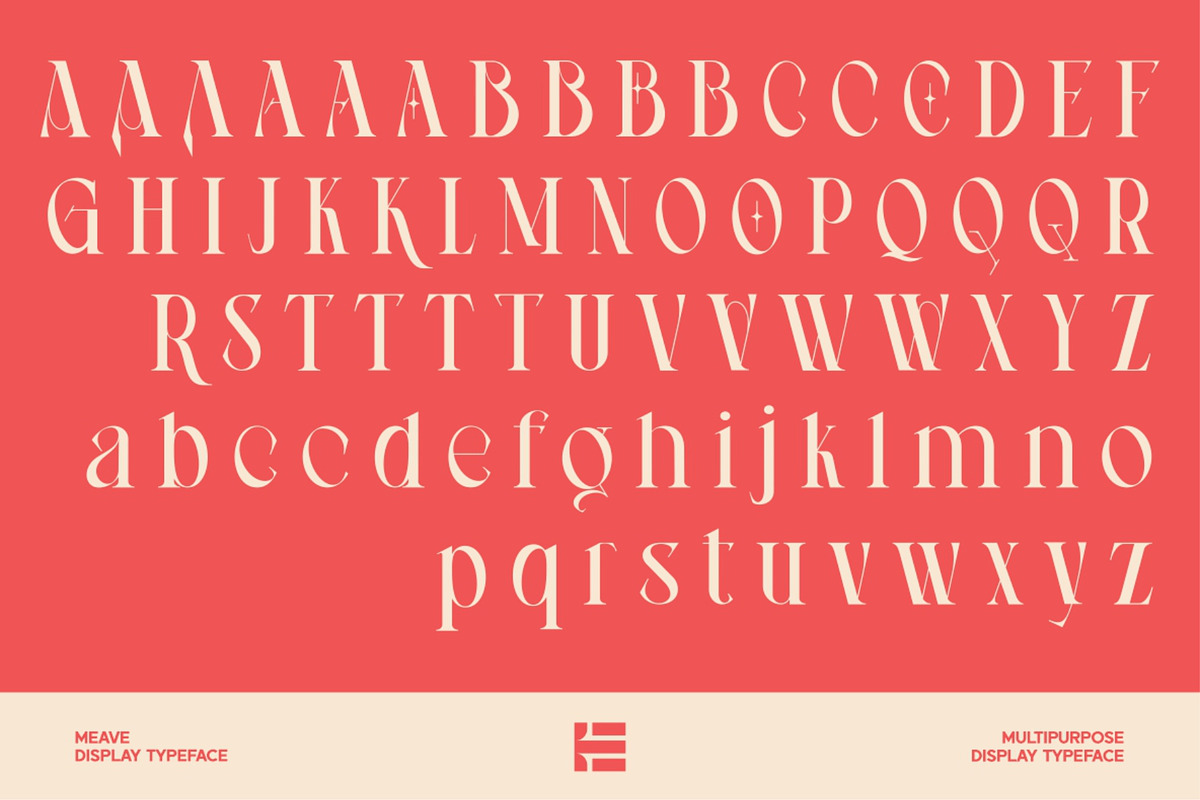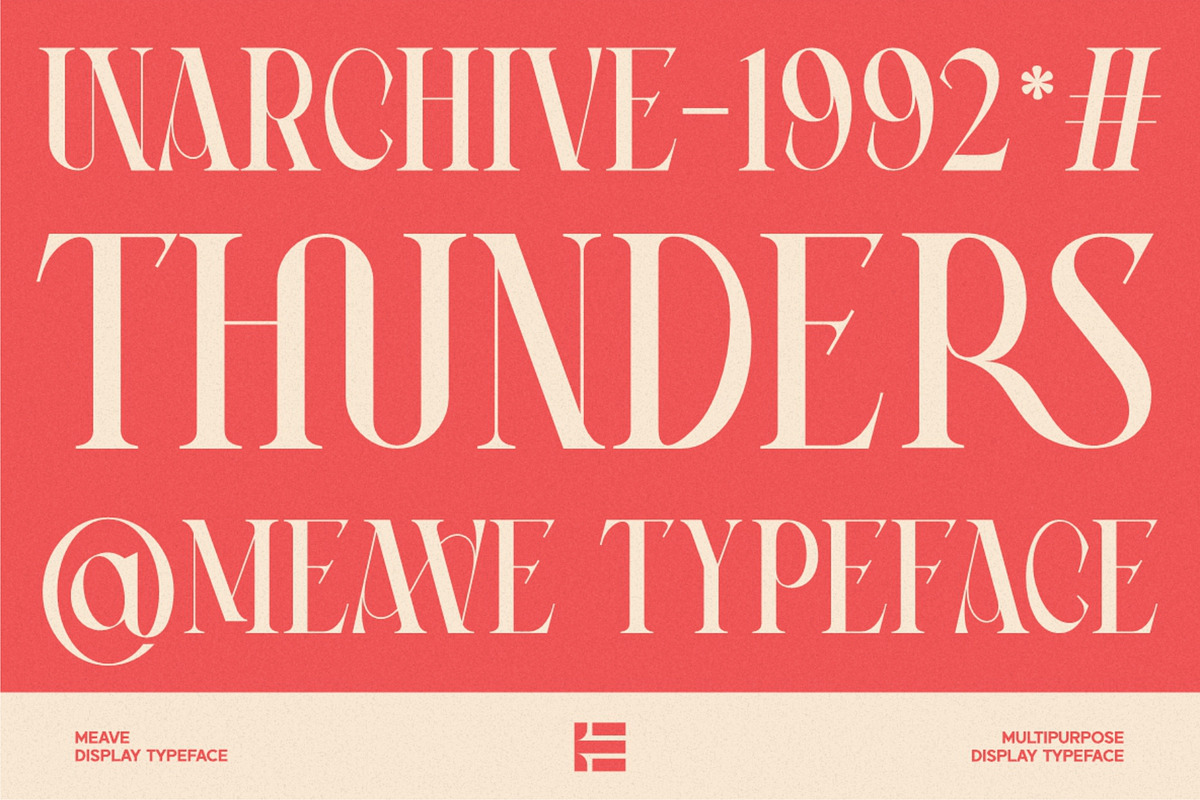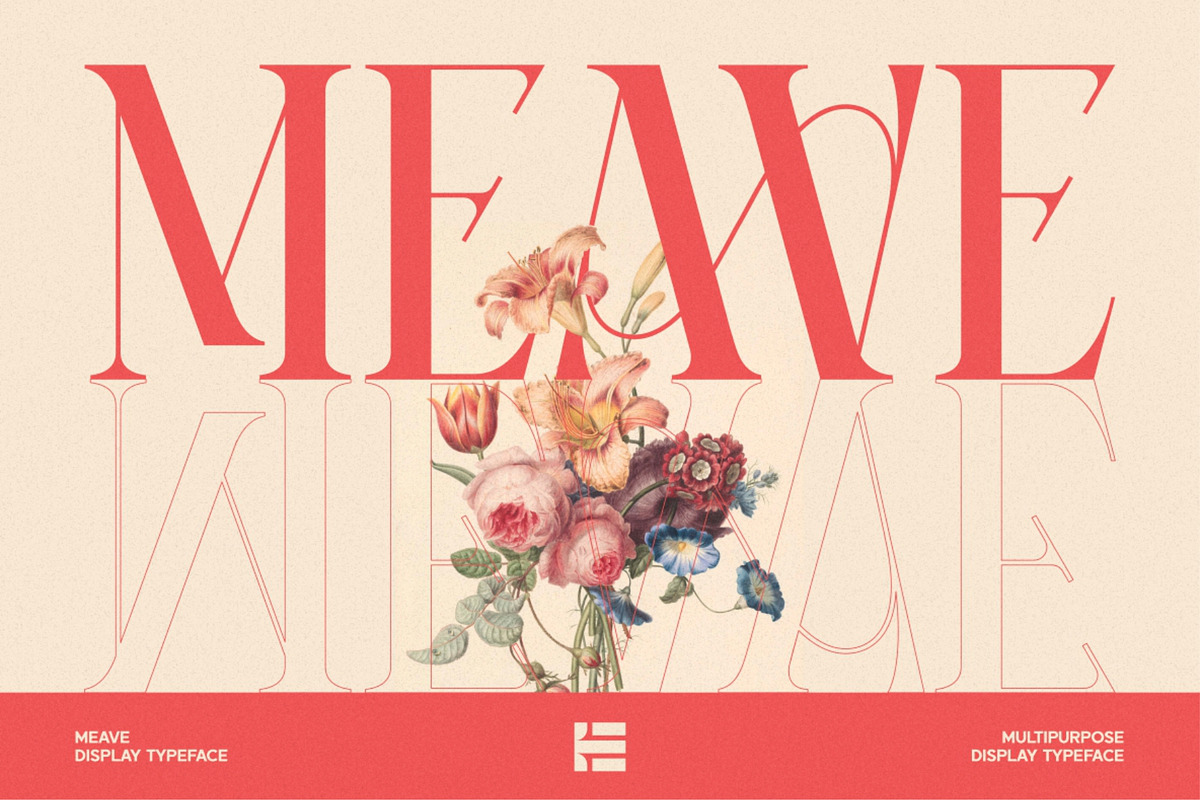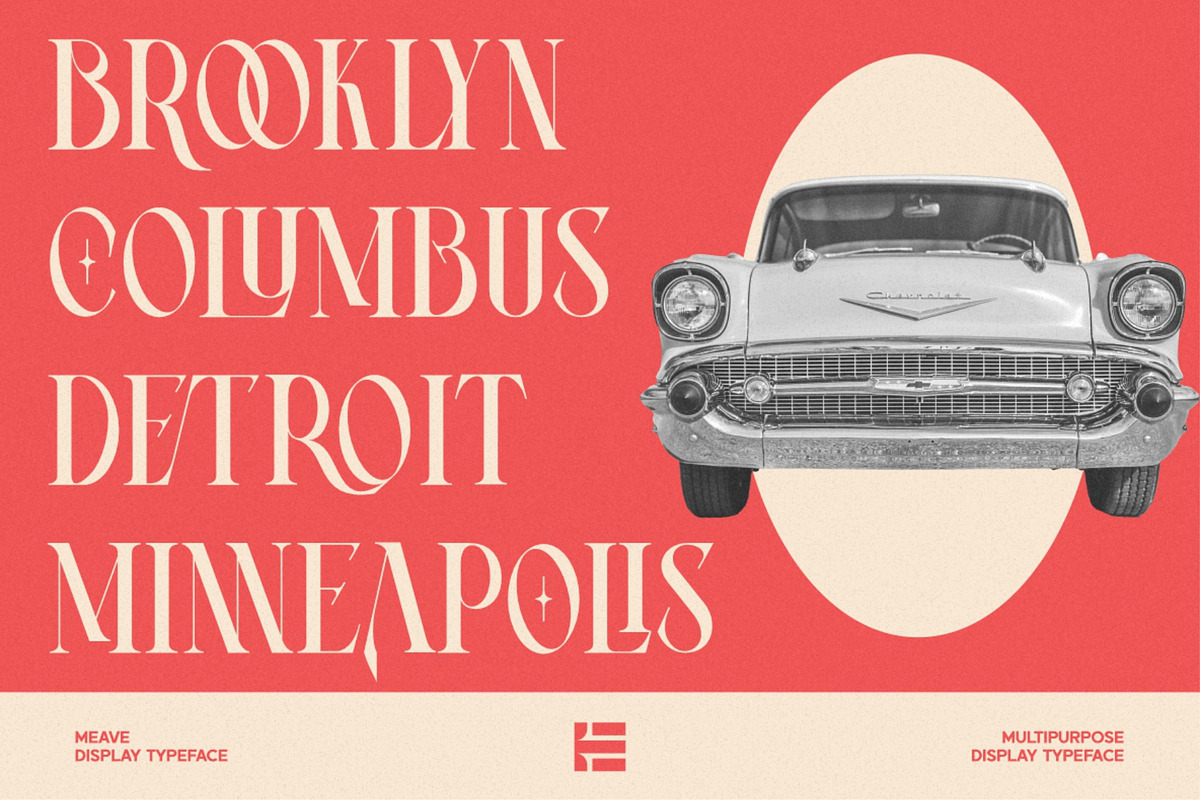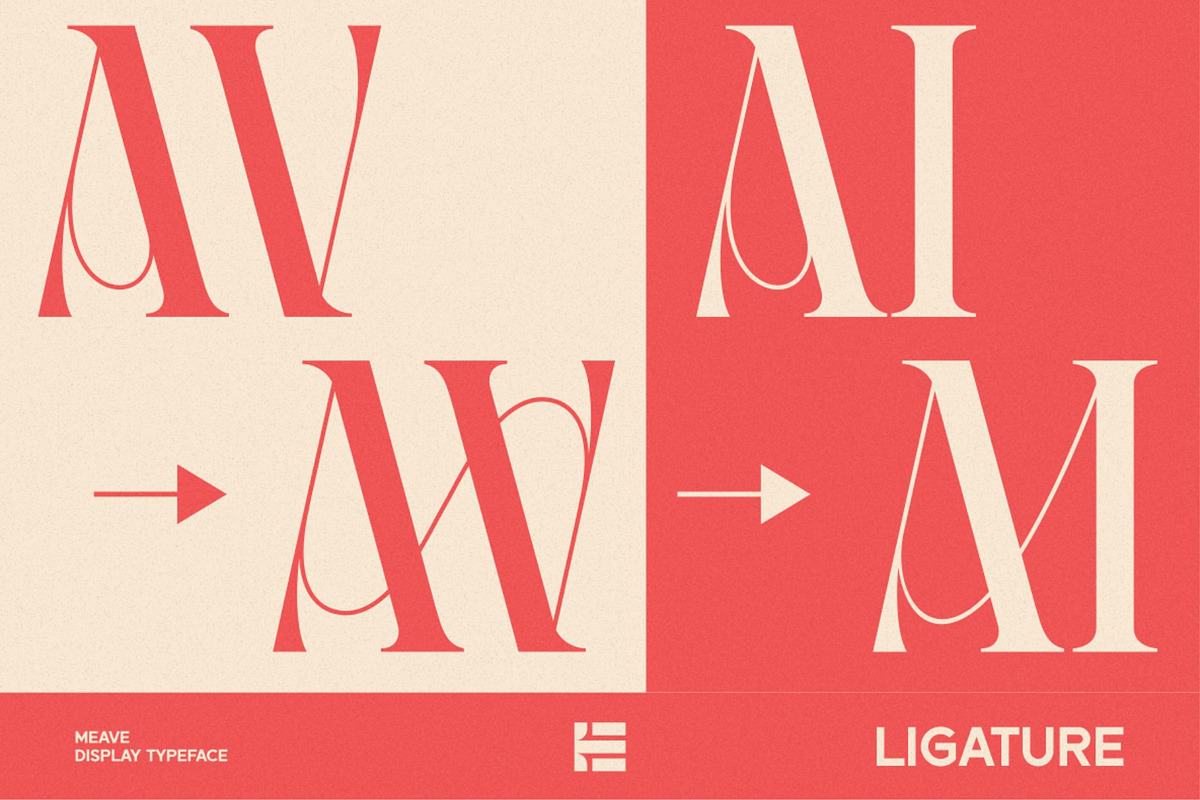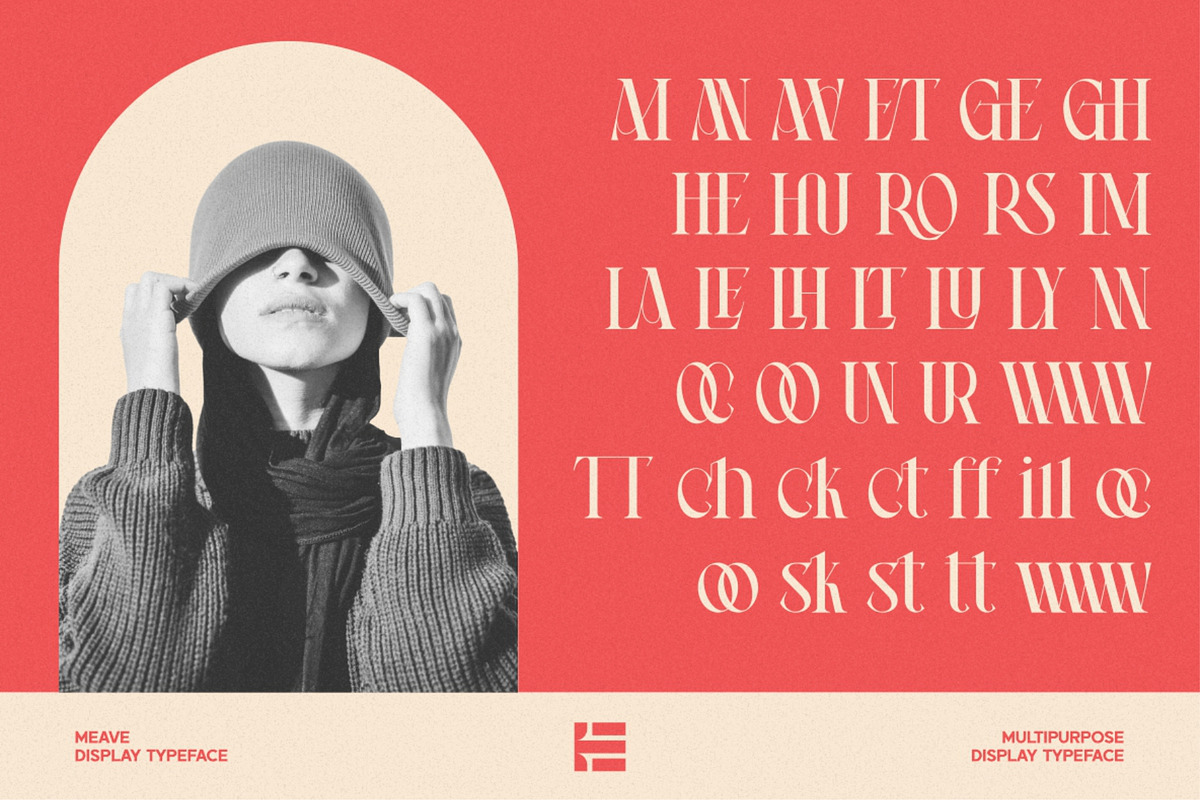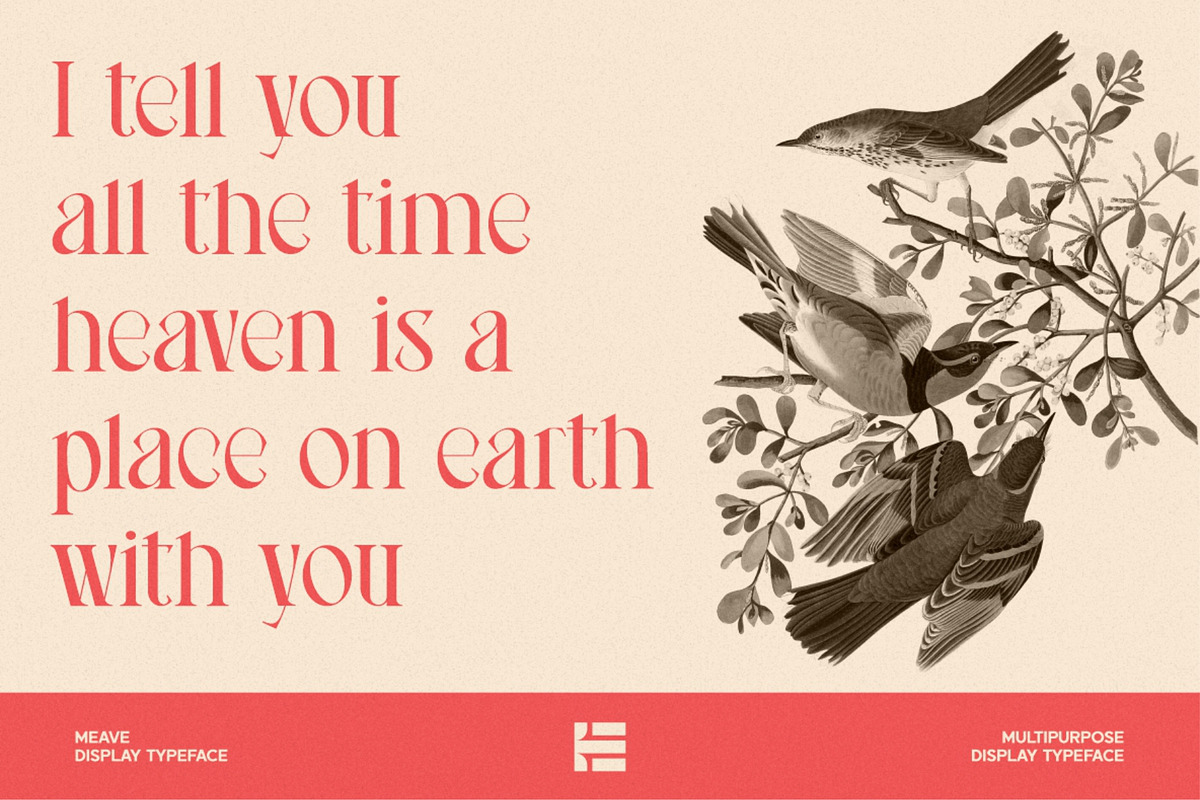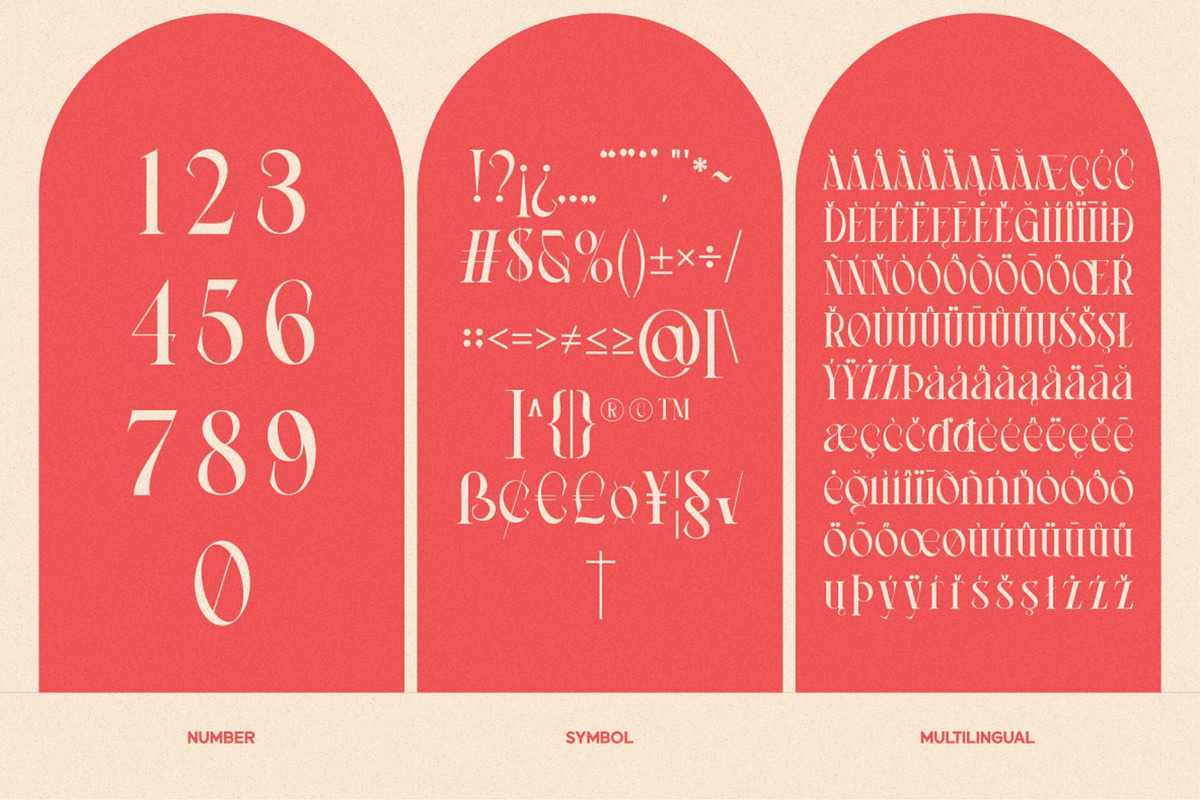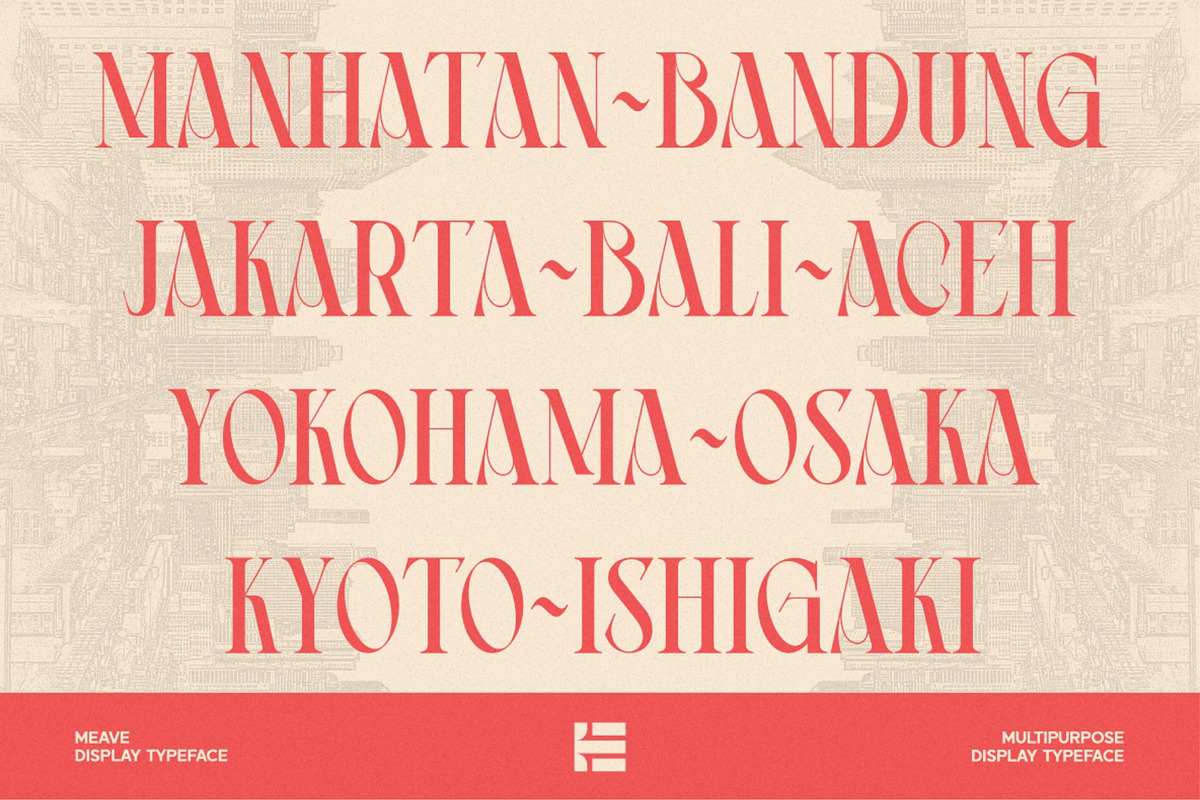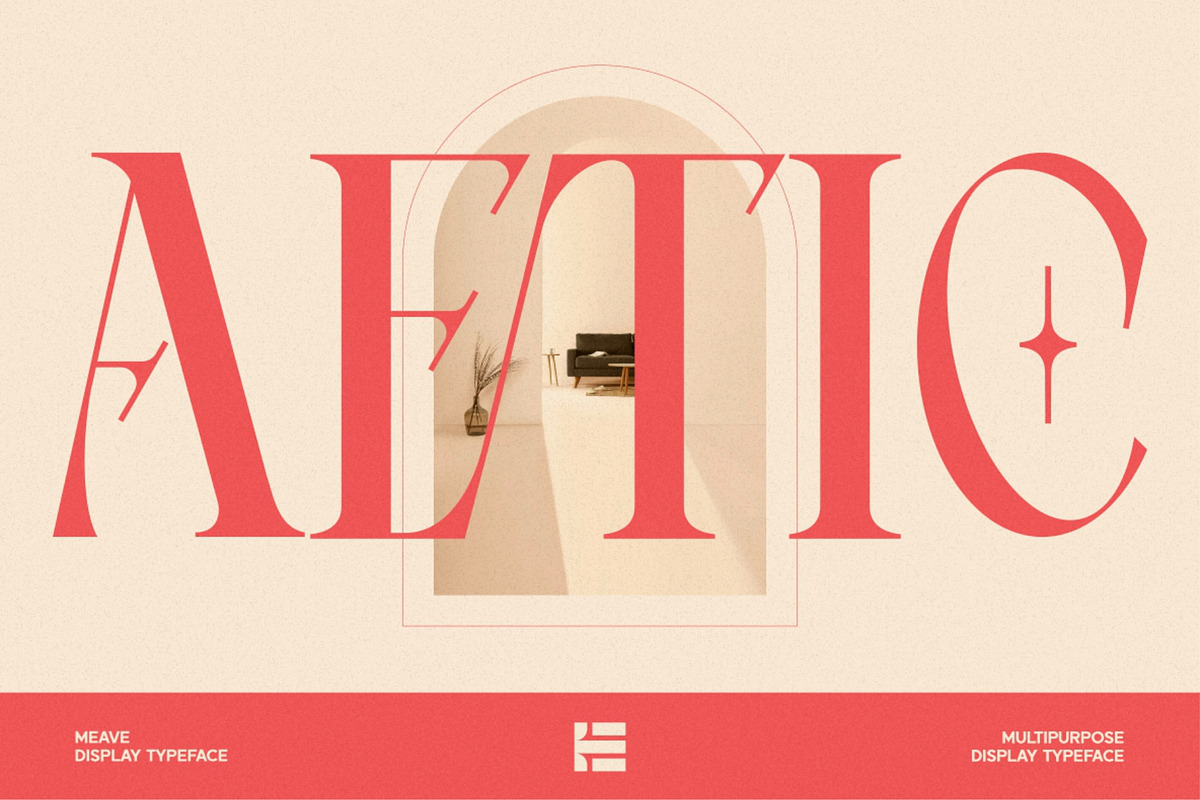
Meave
Meave is high contrast serif font features a mixed modern-classic design. Meave support multilingual languages, numbers, punctuation and alternative-ligatures. Create unique & beautiful logotype, use it as an elegant solution for your next magazine layout, or choose Meave for any graphics that require a sleek look with a elegant flair.